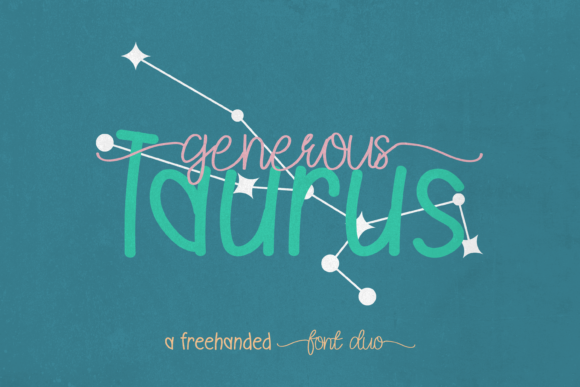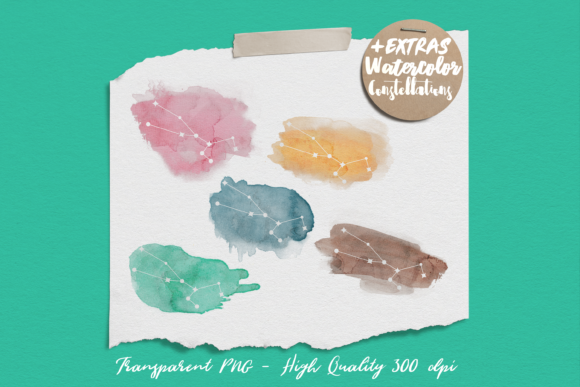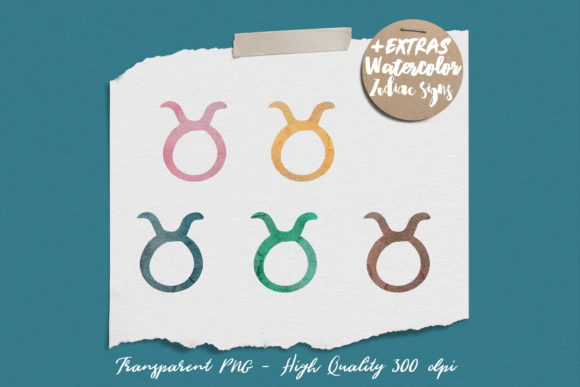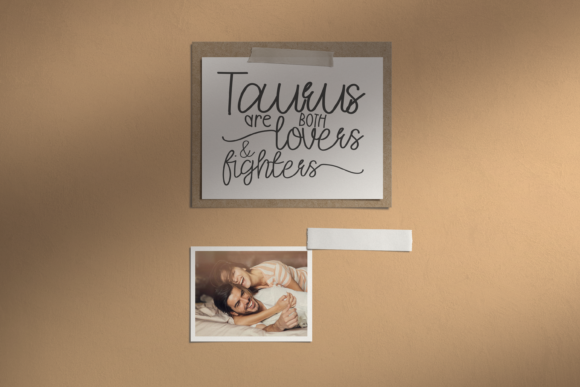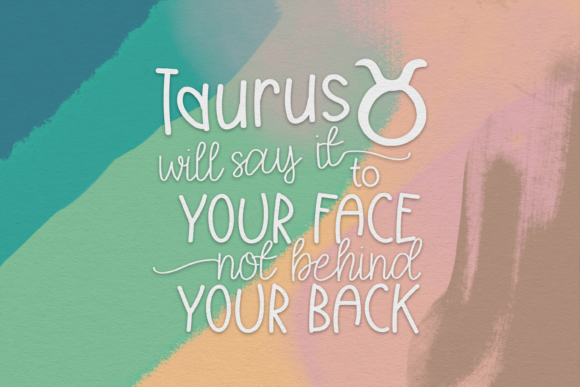
About Generous Taurus Duo Font
Generous Taurus Duo consists of two fonts designed to complement each other perfectly. This font is PUA encoded which means you can access all of the glyphs and swashes with ease!
Together or apart, Generous Taurus Duo are ideal for adding a chic and cheery touch to your crafts.